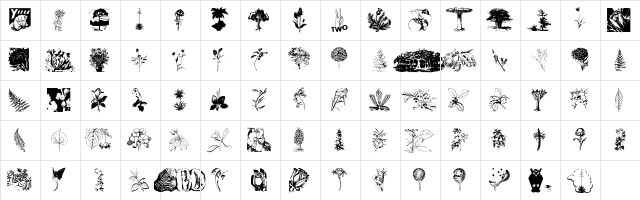
Botanicals Regular Font Preview
Botanicals Regular
Botanicals Regular Font Details
Design Context for Botanicals Typeface
Botanicals is a composed and adaptable typeface that performs quietly and consistently across a wide range of design contexts.